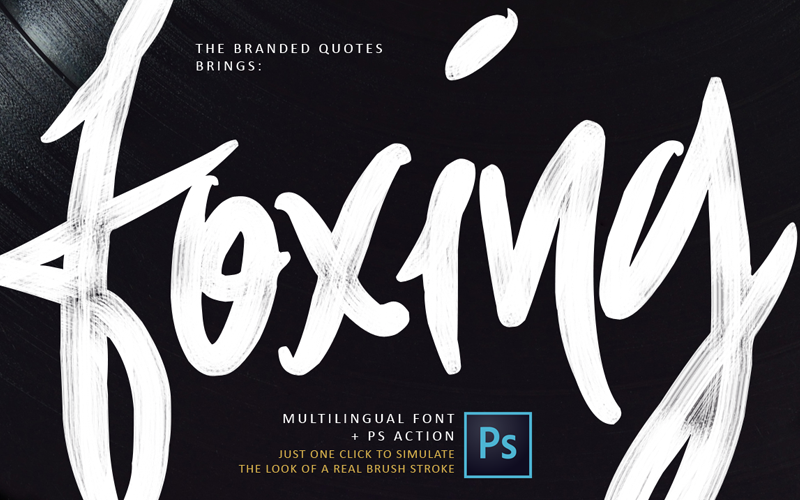
Purchase the Full Version Here: https://sellfy.com/p/xxYG/ Full Version Includes: -Capitals -Multilingual Support -PS Foxing Action -Standard License About this font: Foxing font is a hybrid of the street calligraphy and the gorgeousness of a script font. Curvy and tough! Now this is the game-changer, Foxing PS Action! A single-click effect that changes a normal font into a realistic hand-brushed typography. Yes, for real. Download includes: -Foxing Font (Multilingual in ttf and otf) -Foxing PS Action -Foxing Brush -Installation Guide -Standard License Thank You and Have a Wonderful Year Ahead! |